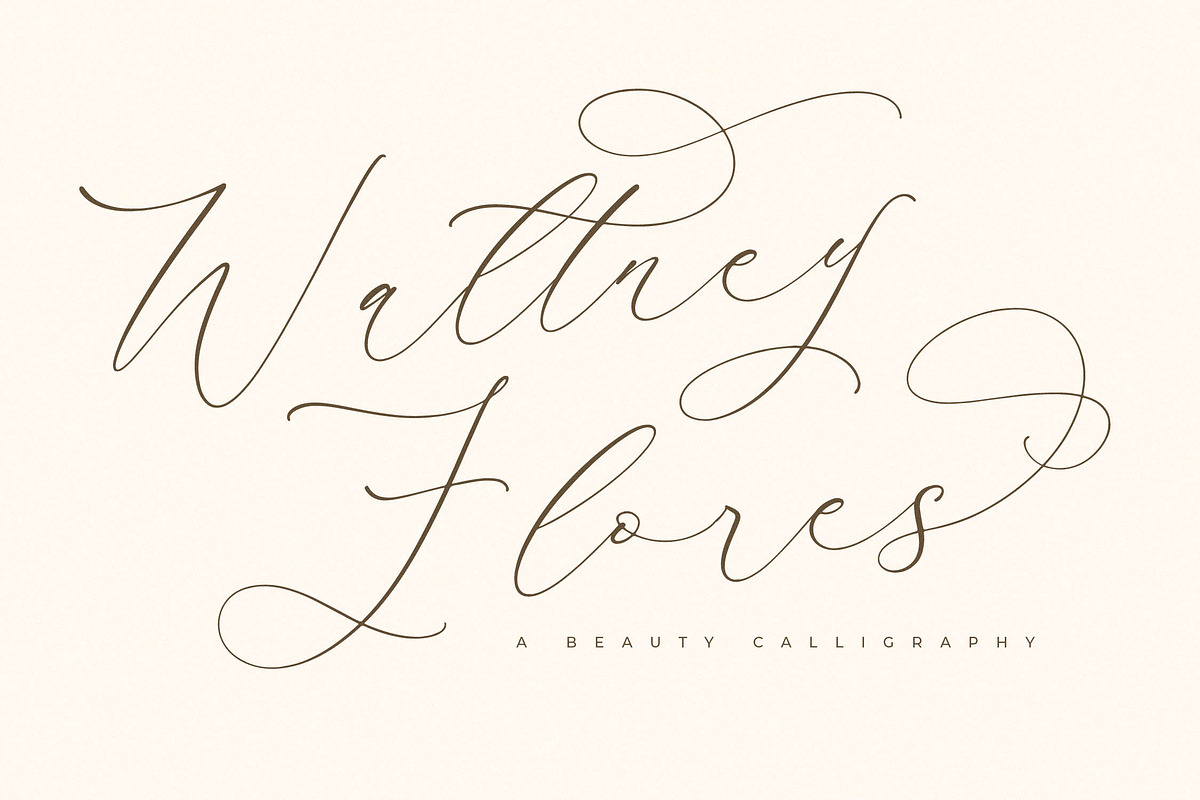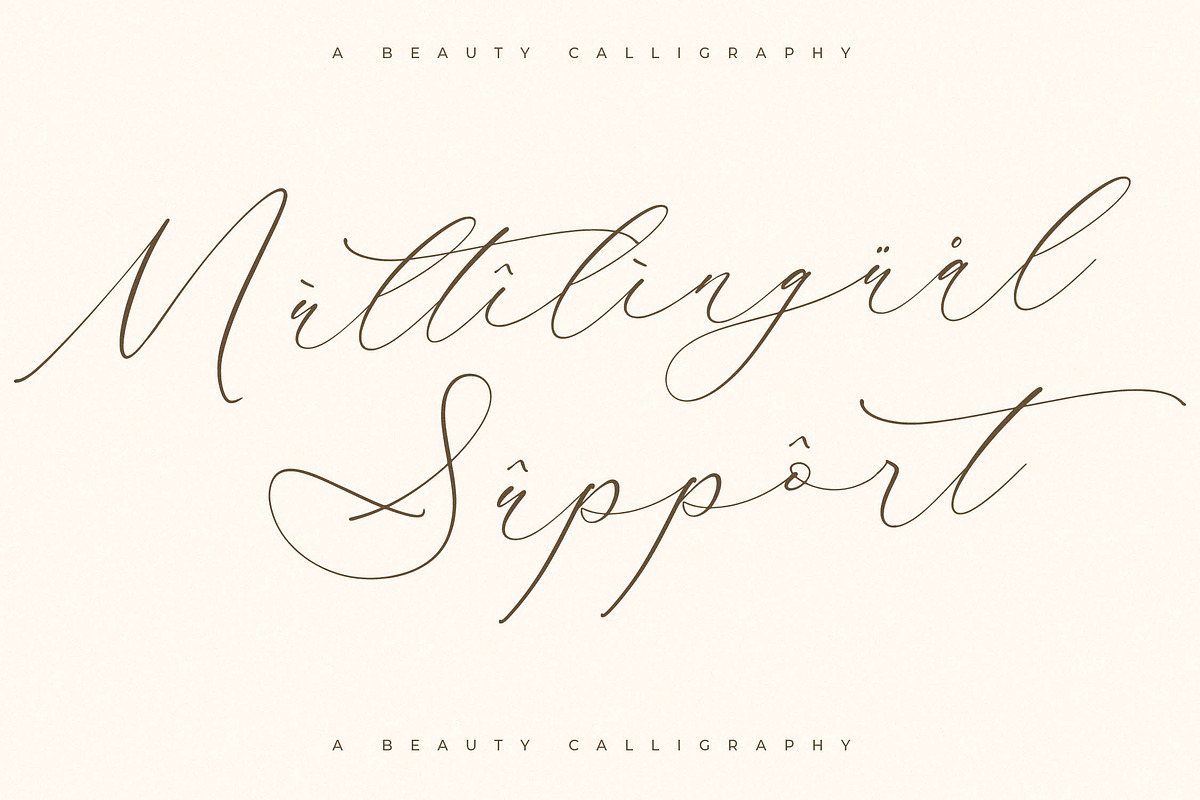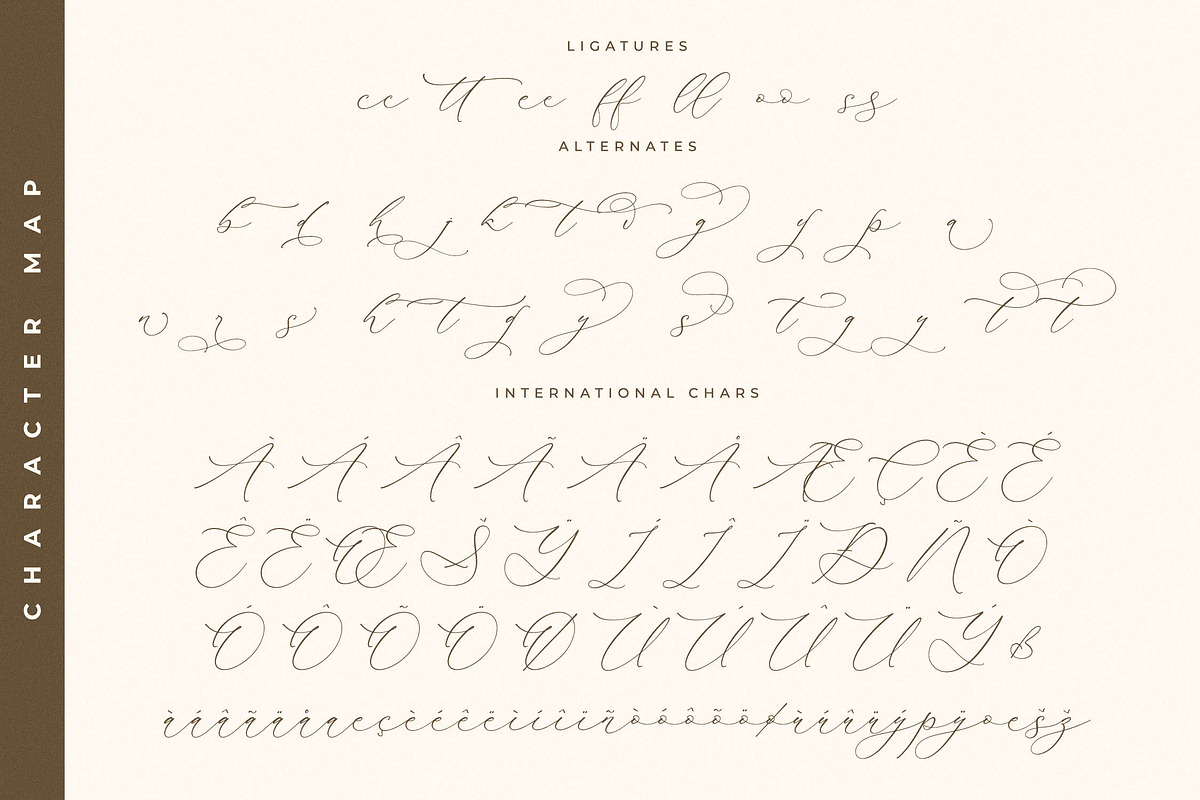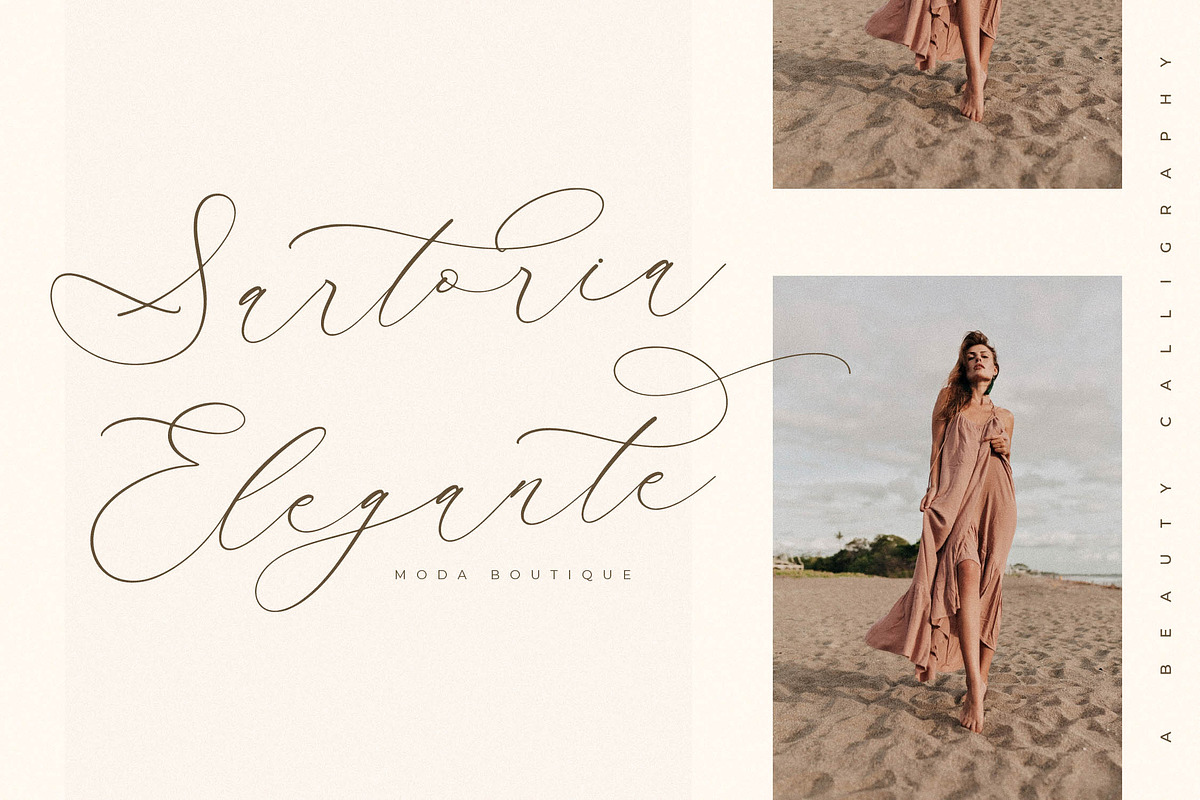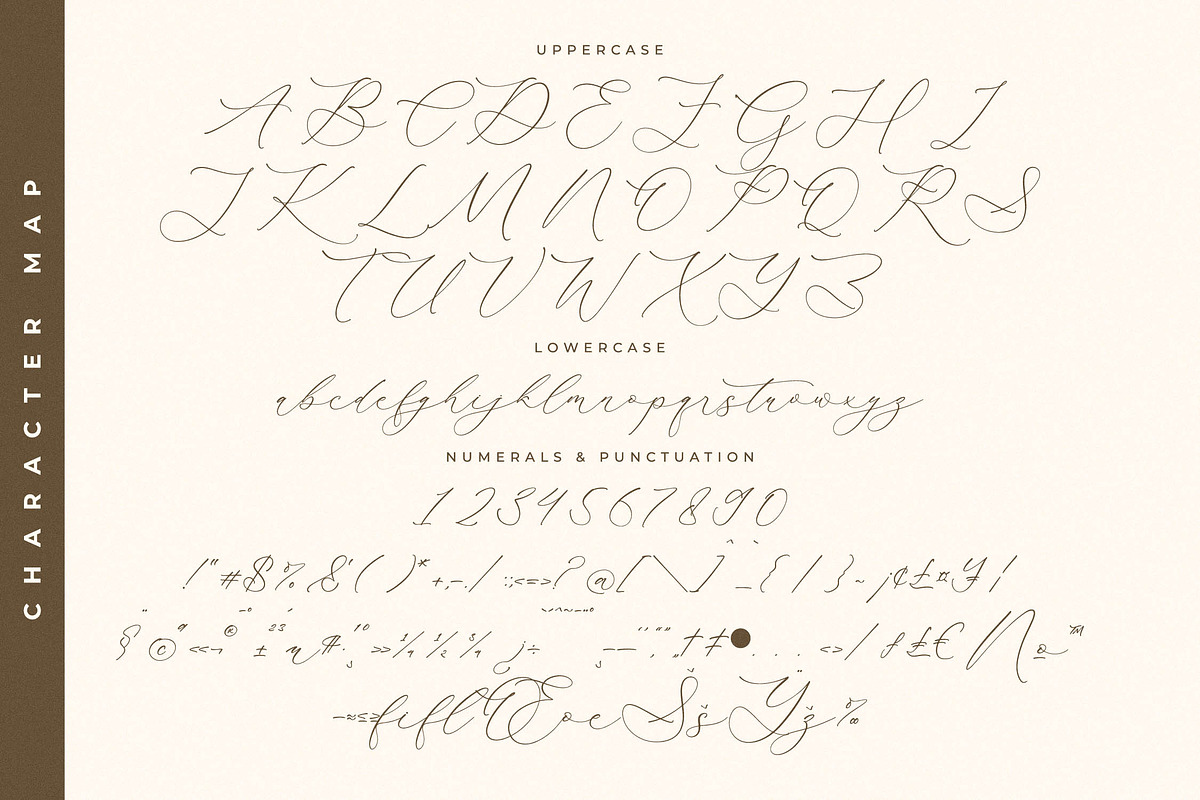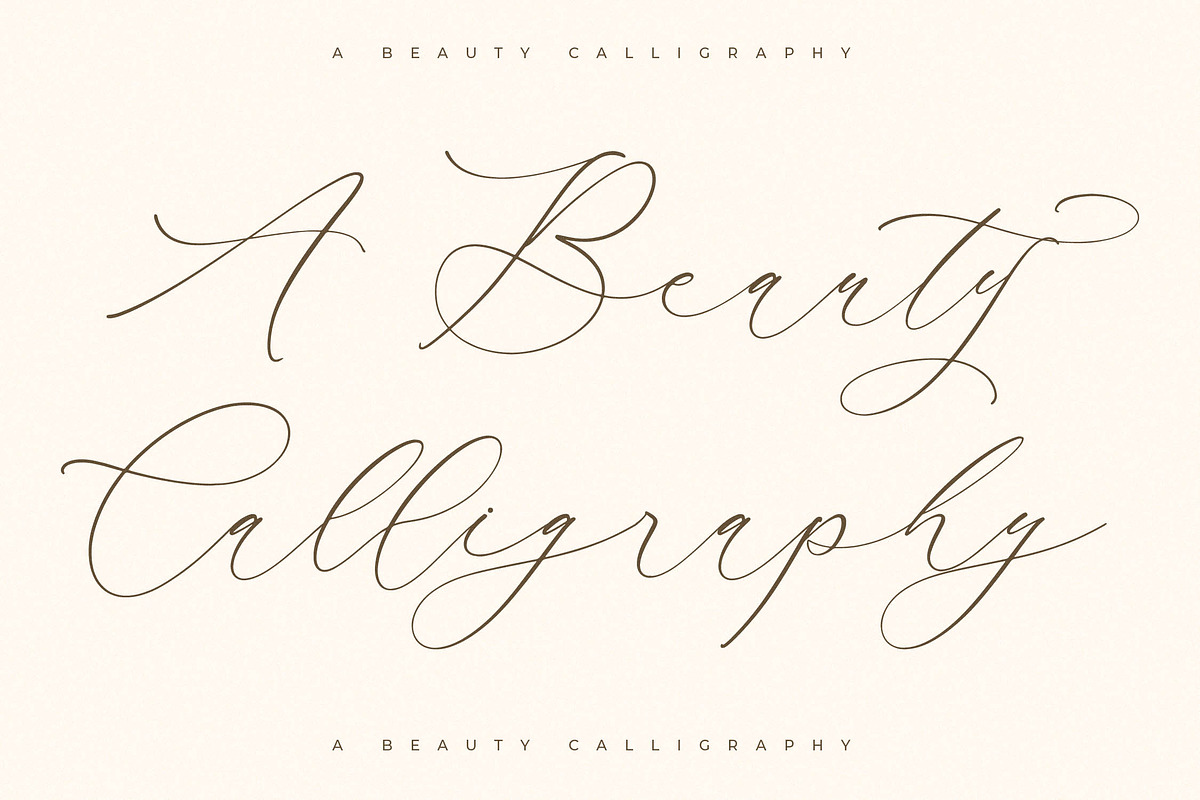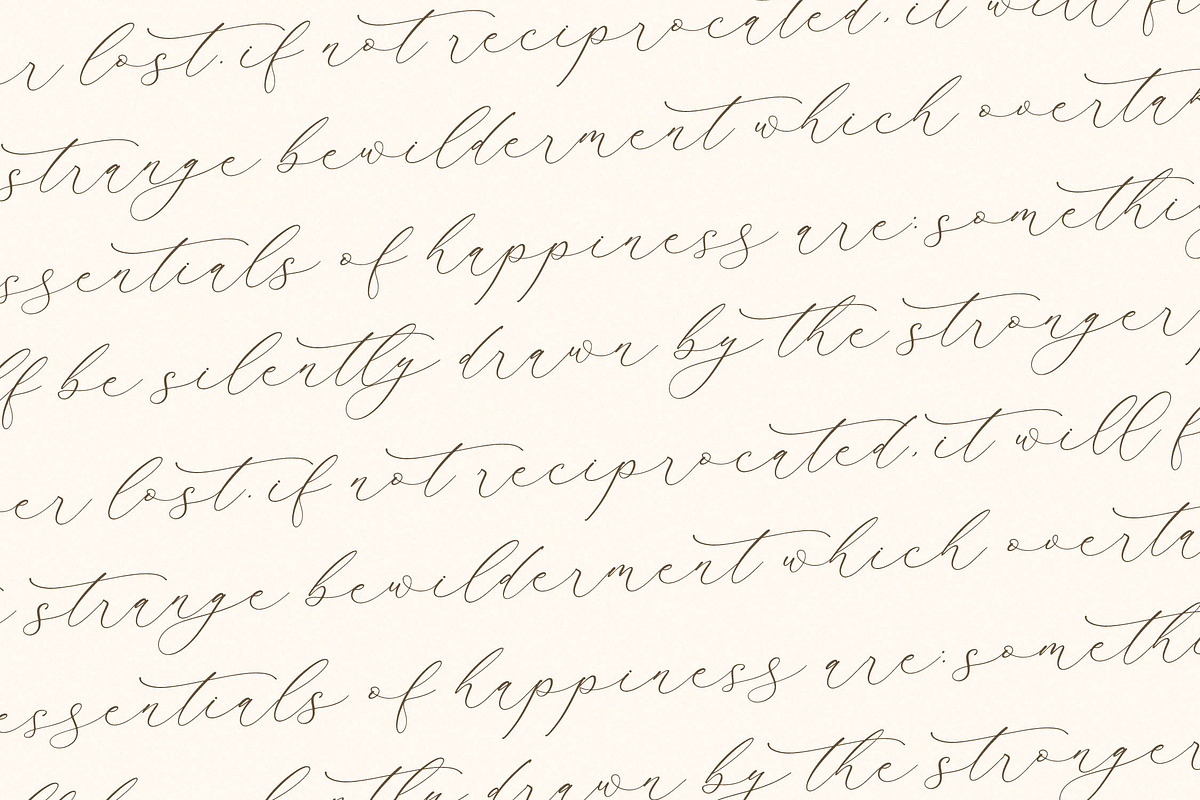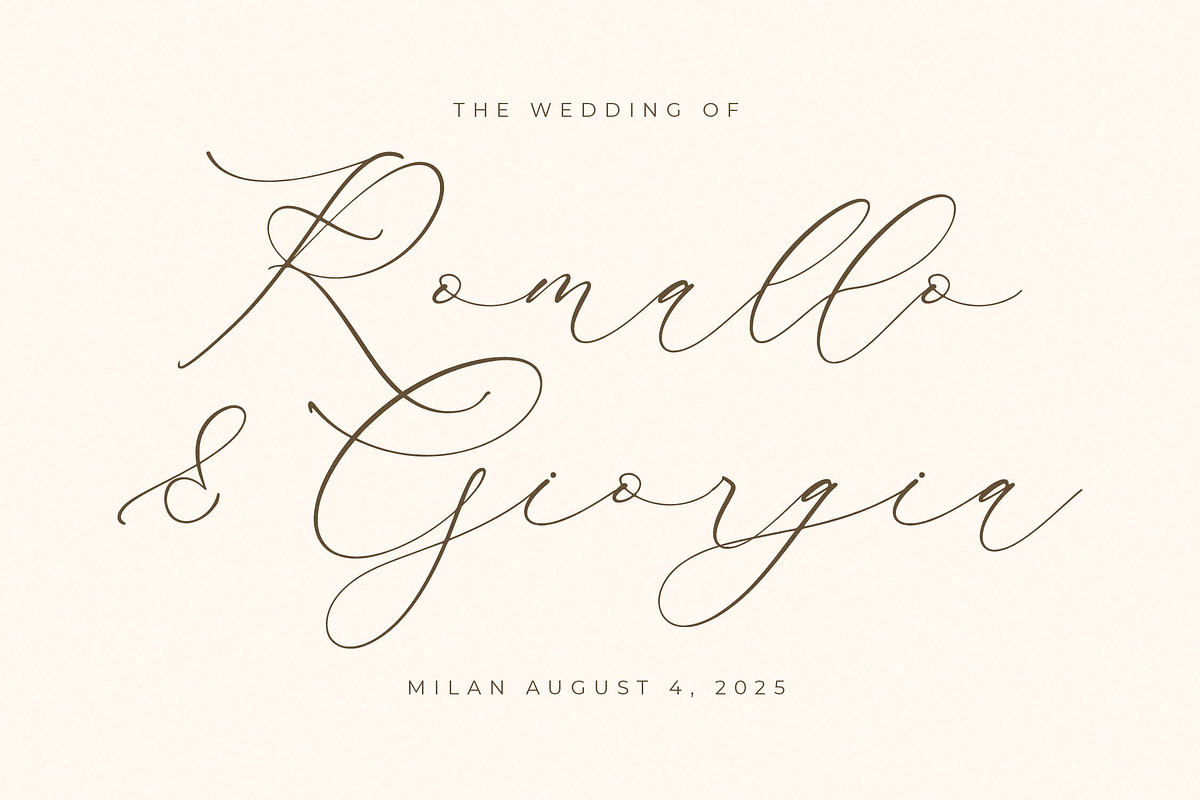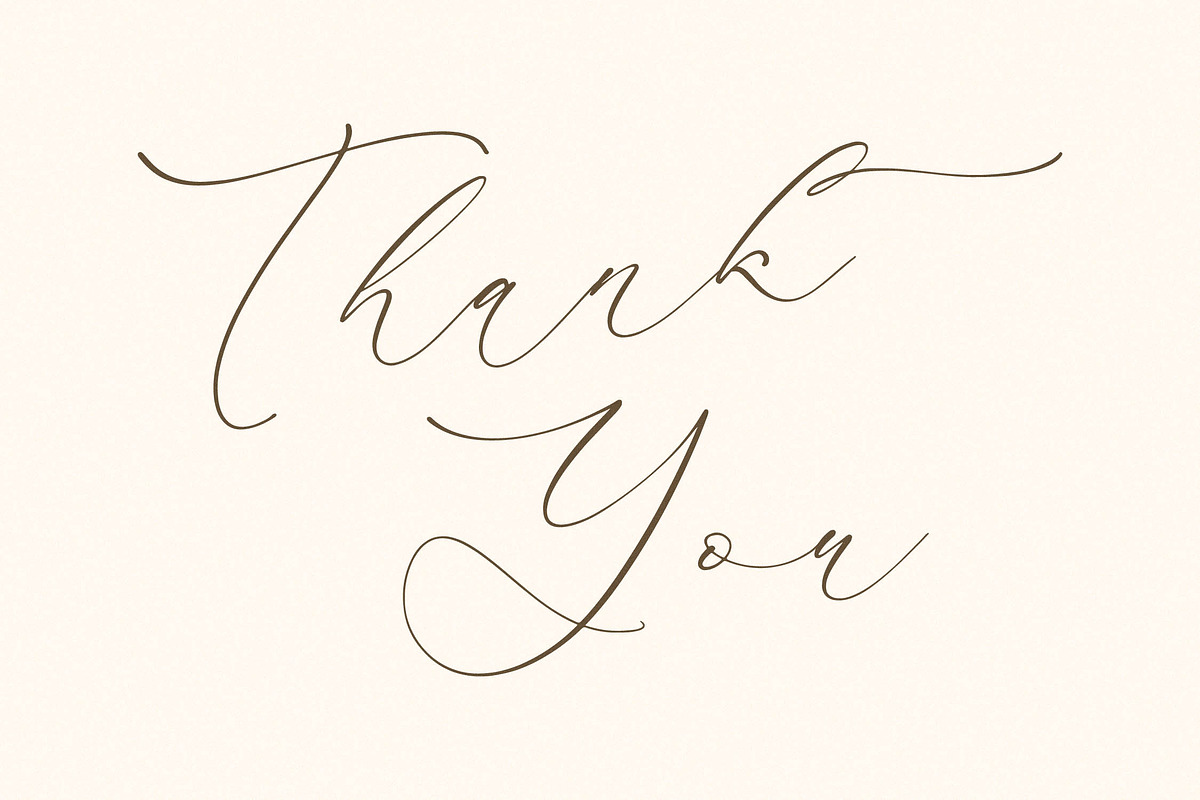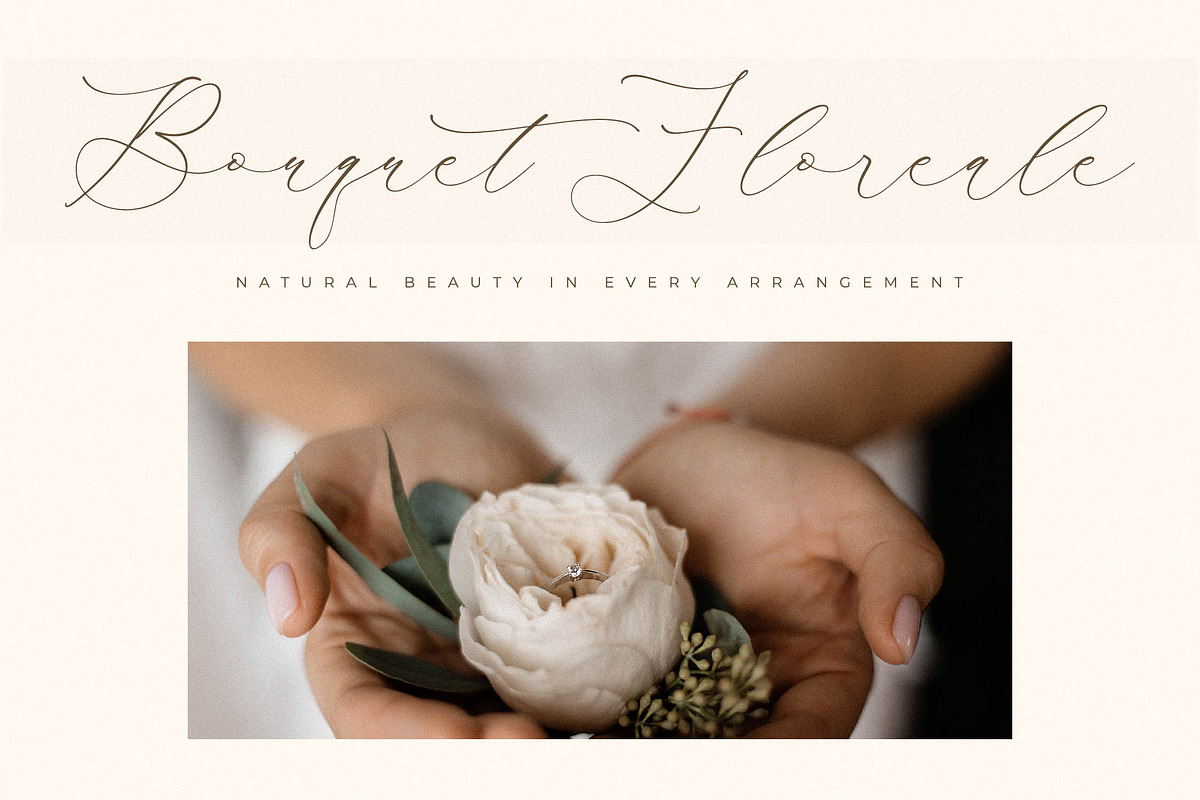
Waltney Flores A Beauty Calligraphy
Proudly present Waltney Flores – Beauty Calligraphy , created by Storytype, A luxury script that has own unique style & modern look. This typeface is perfect for an elegant & luxury logo, book or movie title design, fashion brand, magazine, clothes, lettering, quotes, and so much more.